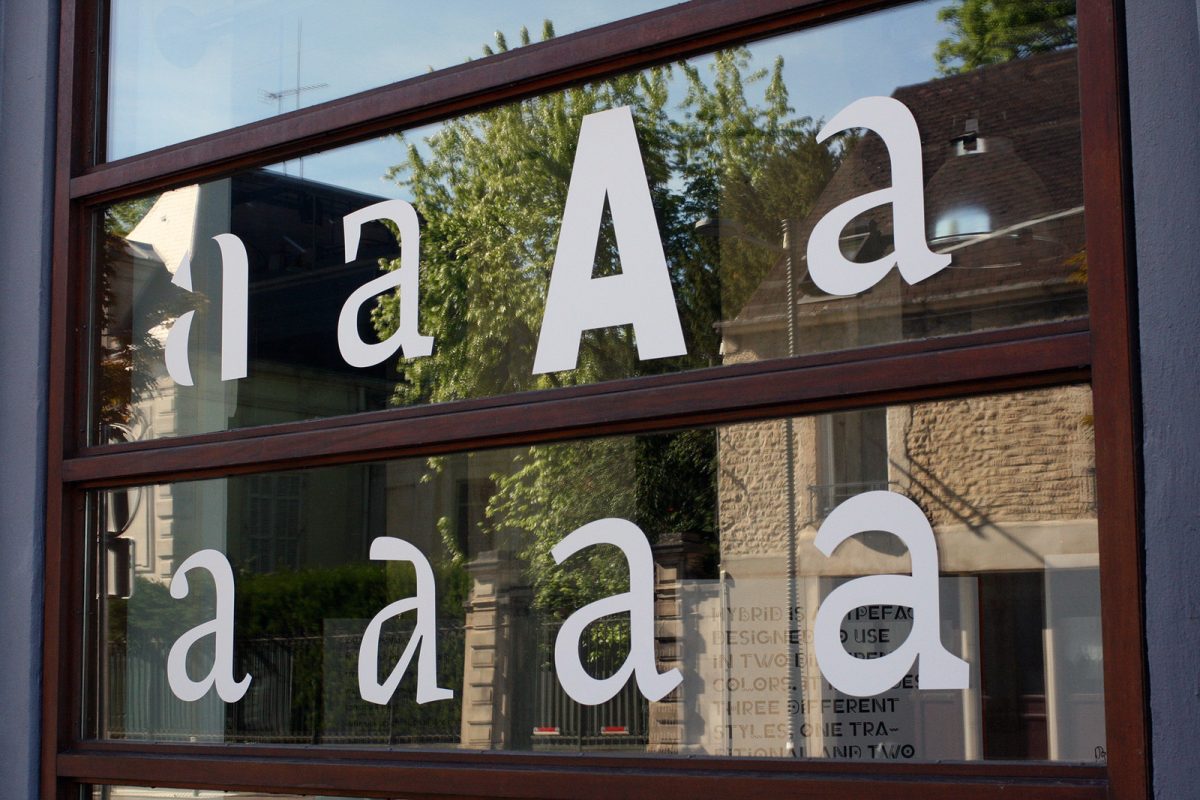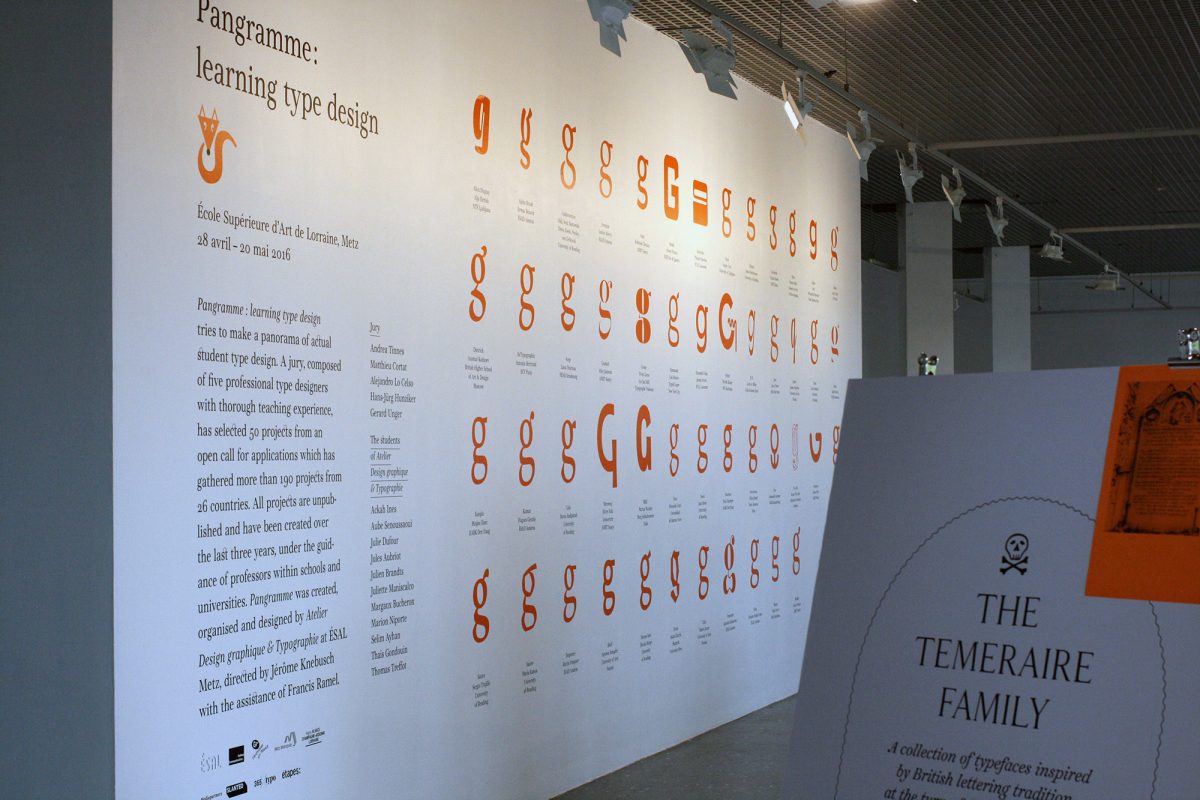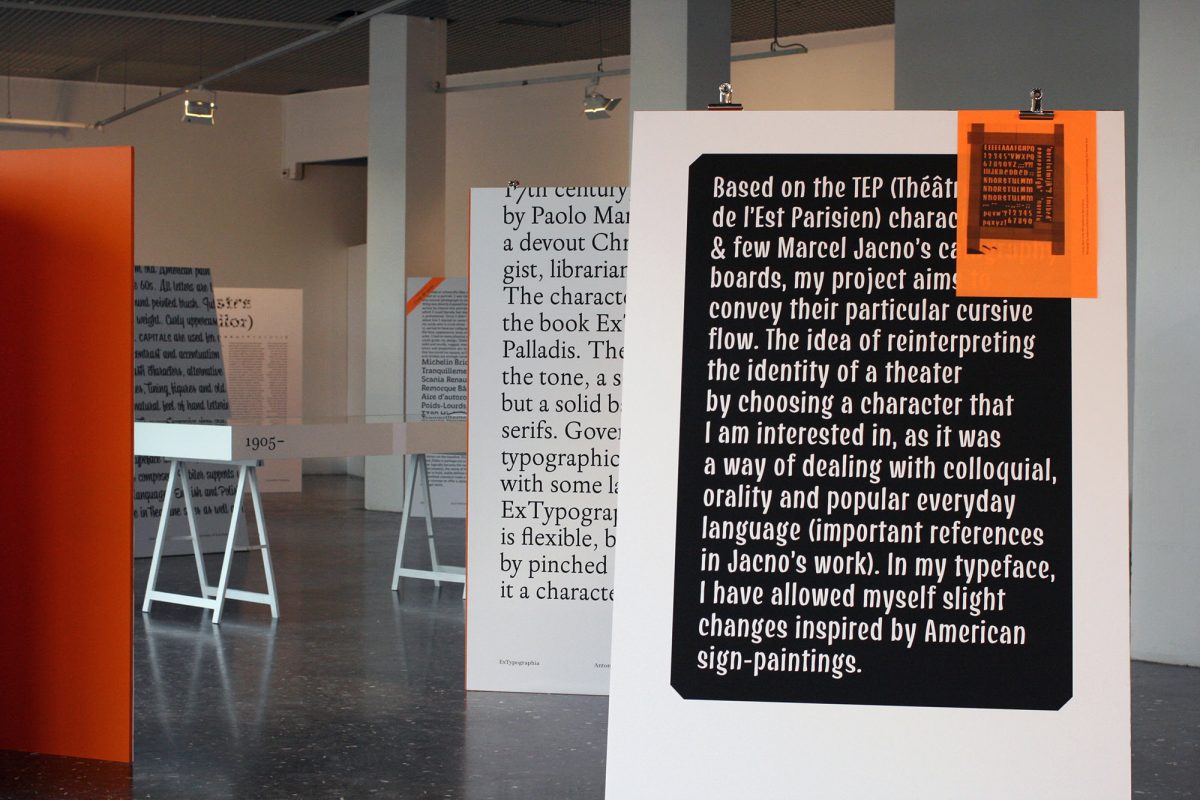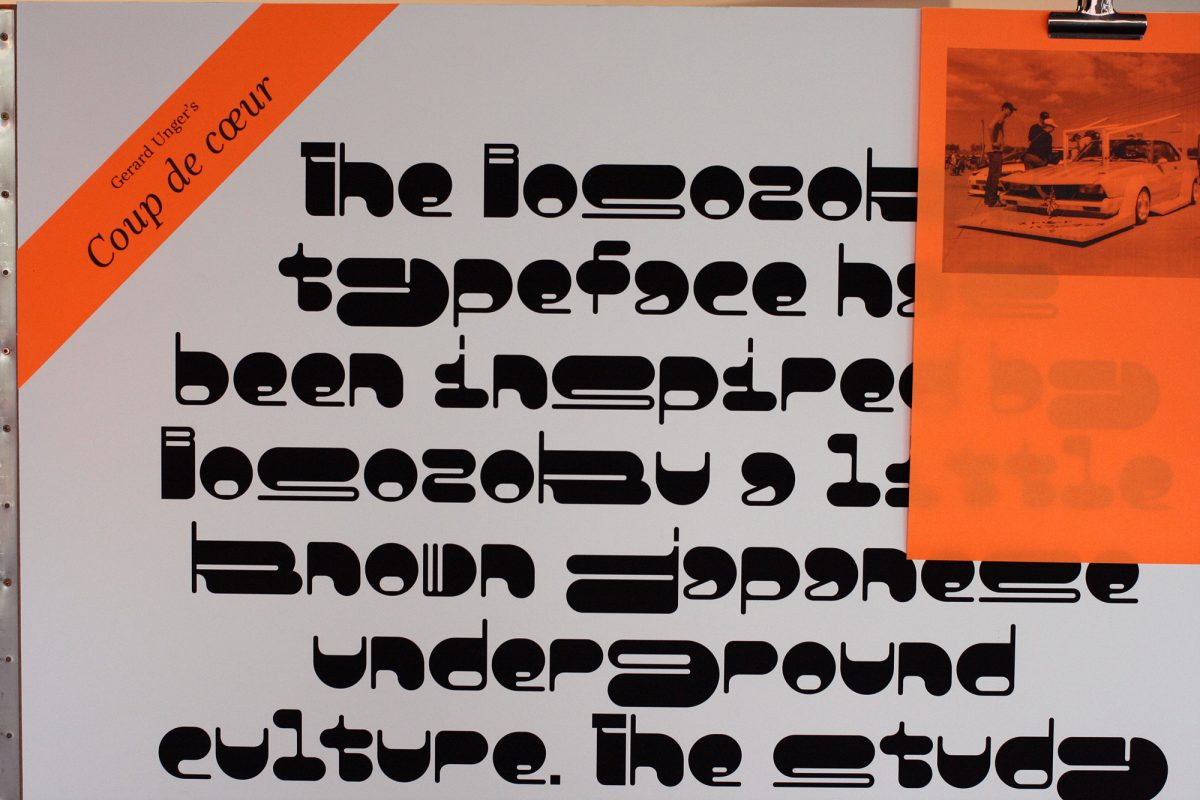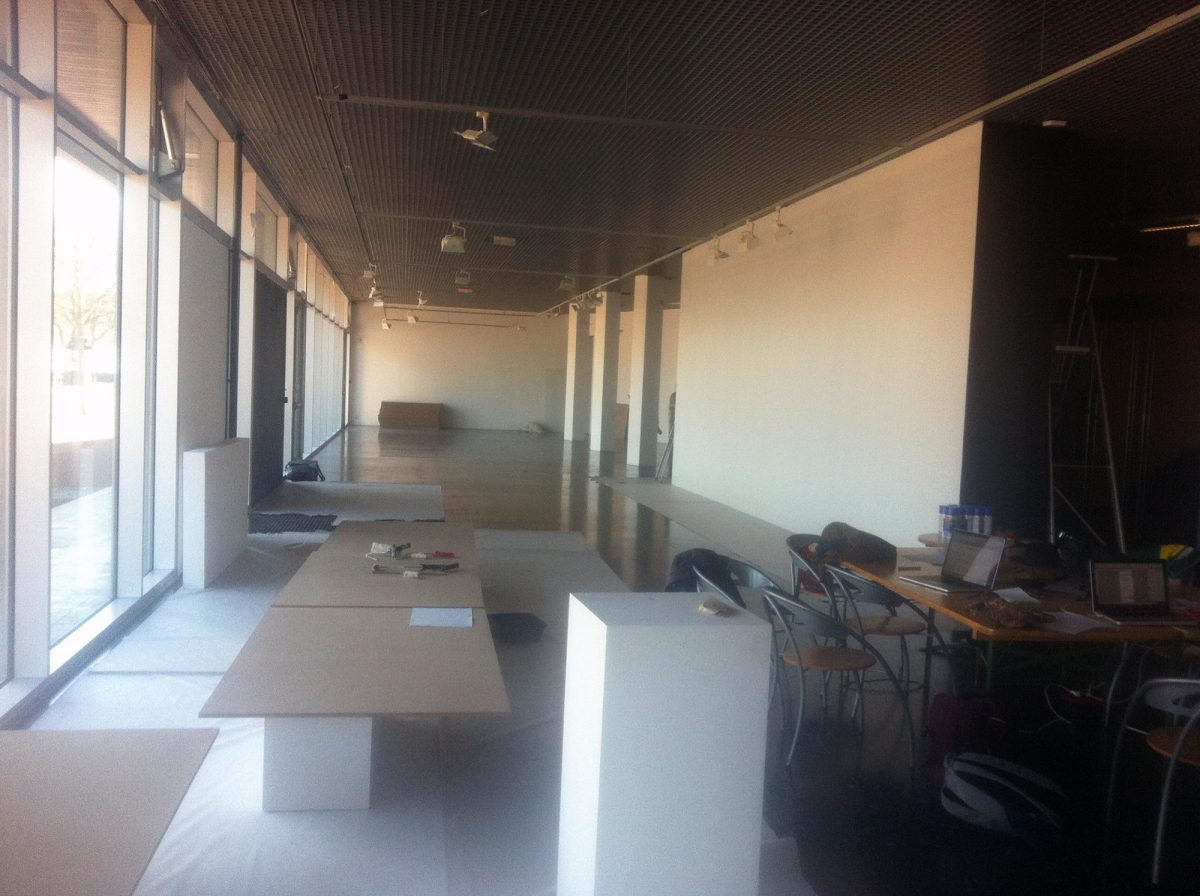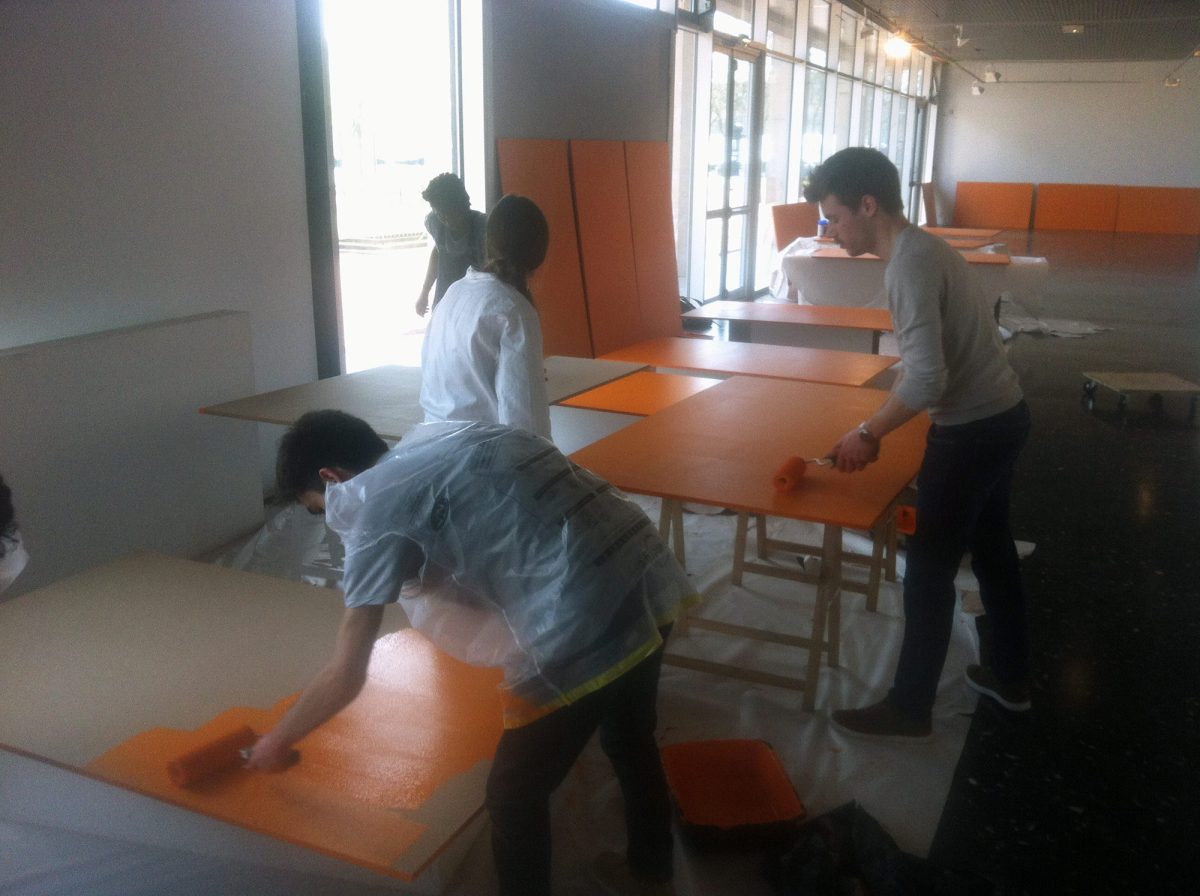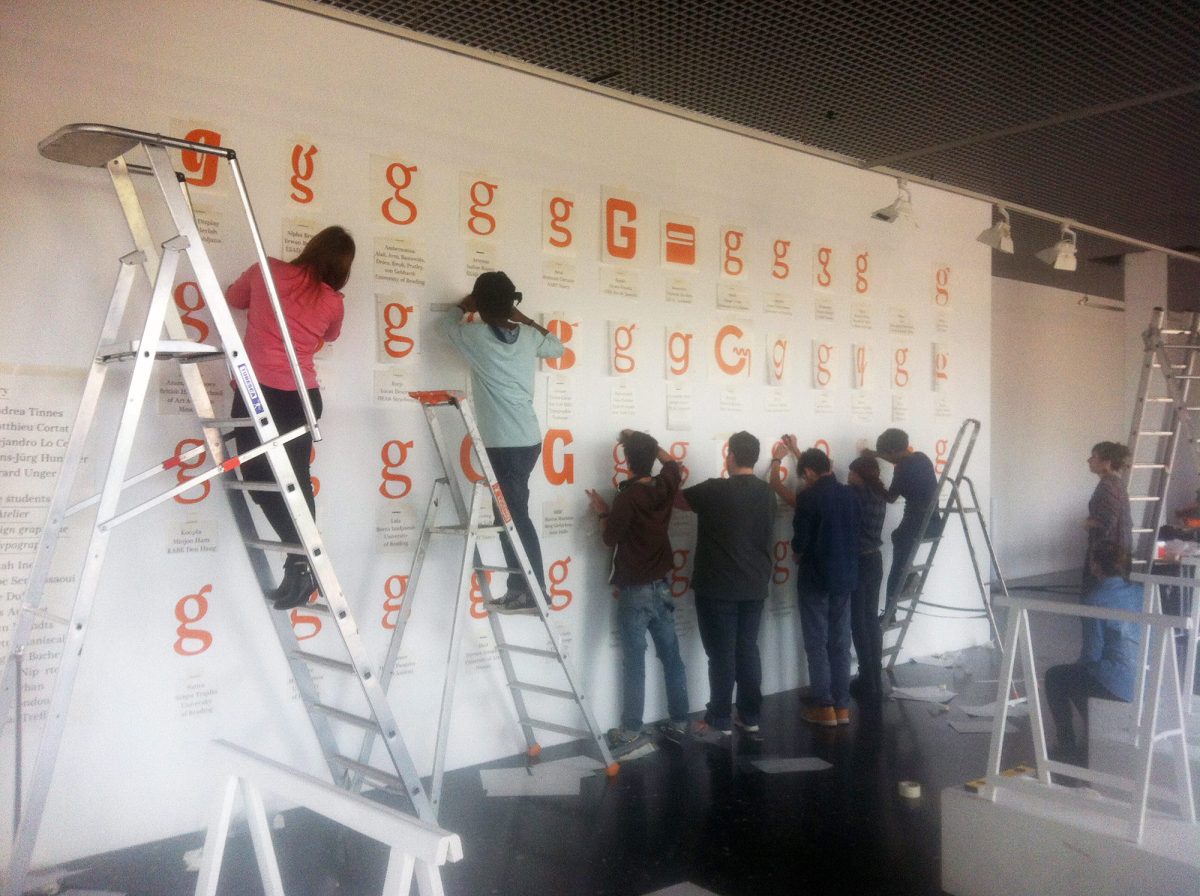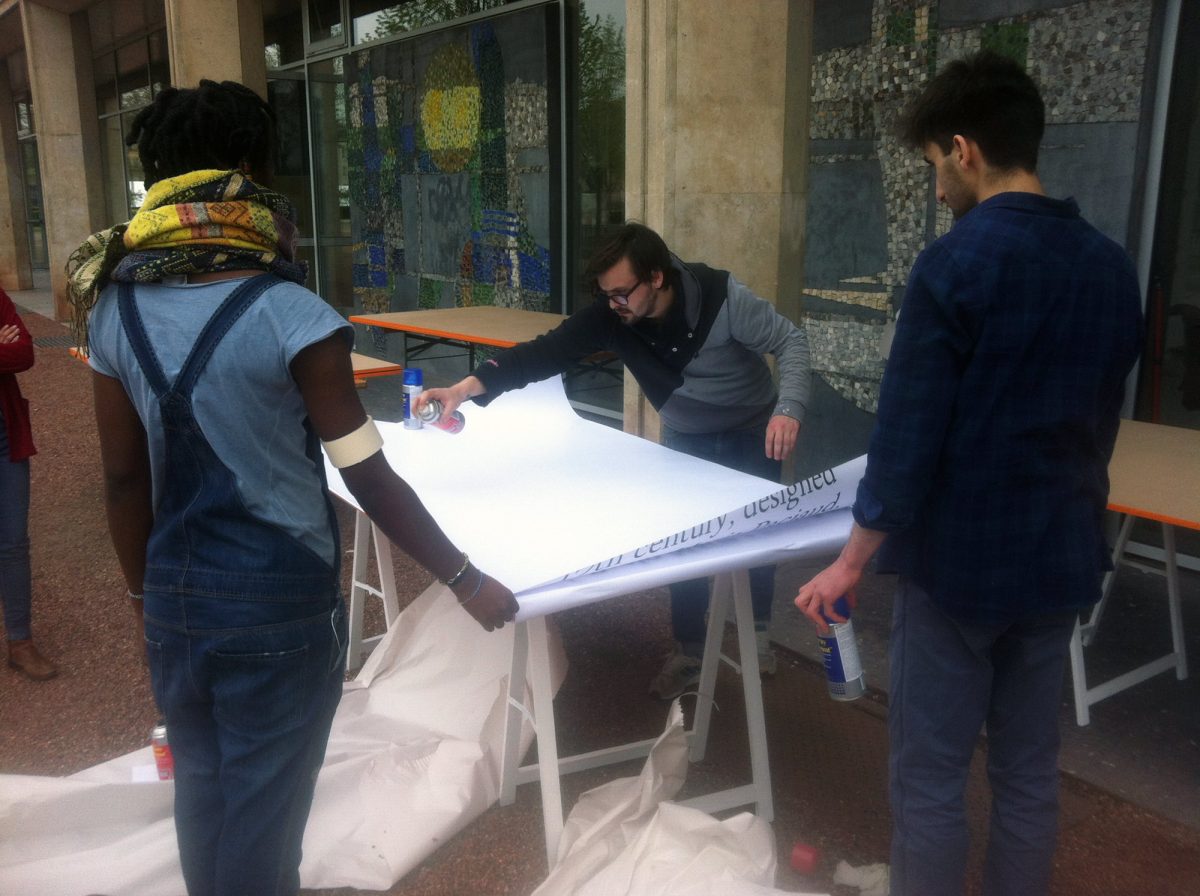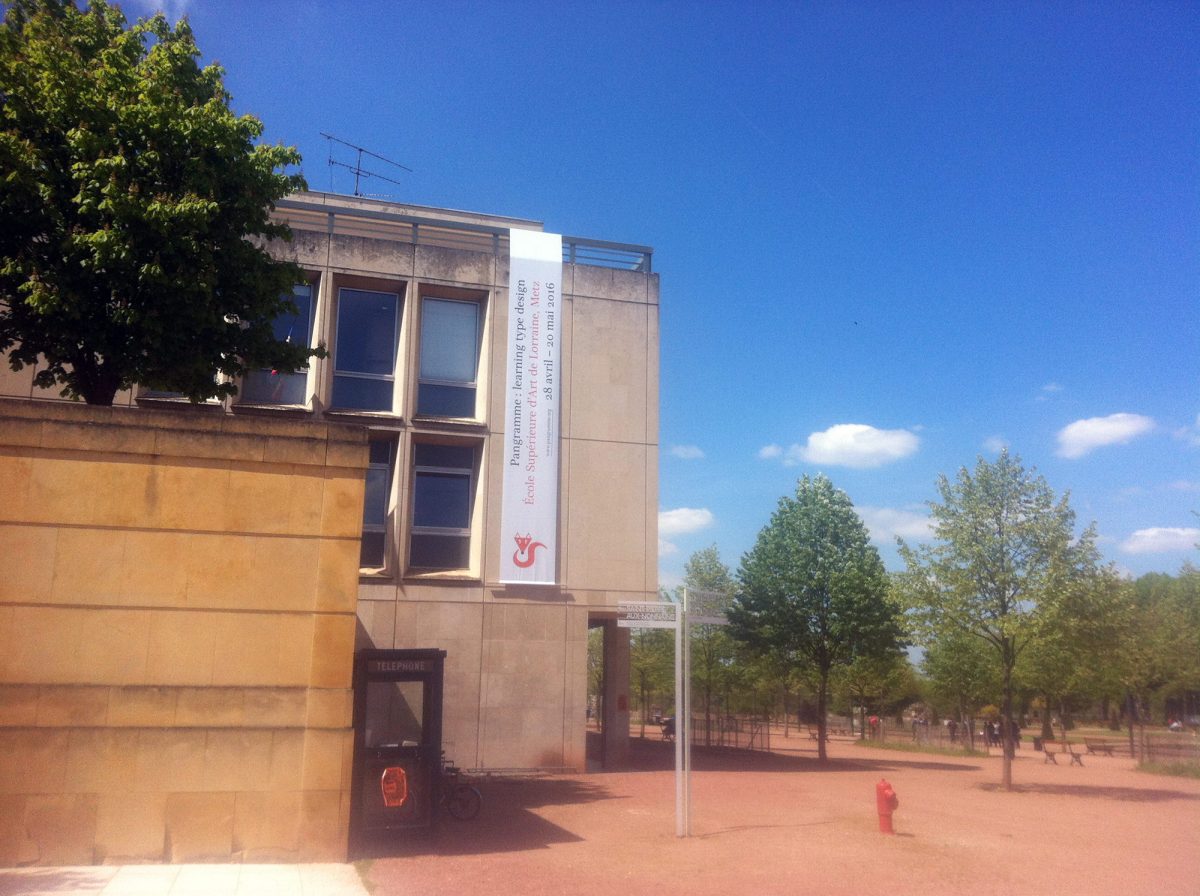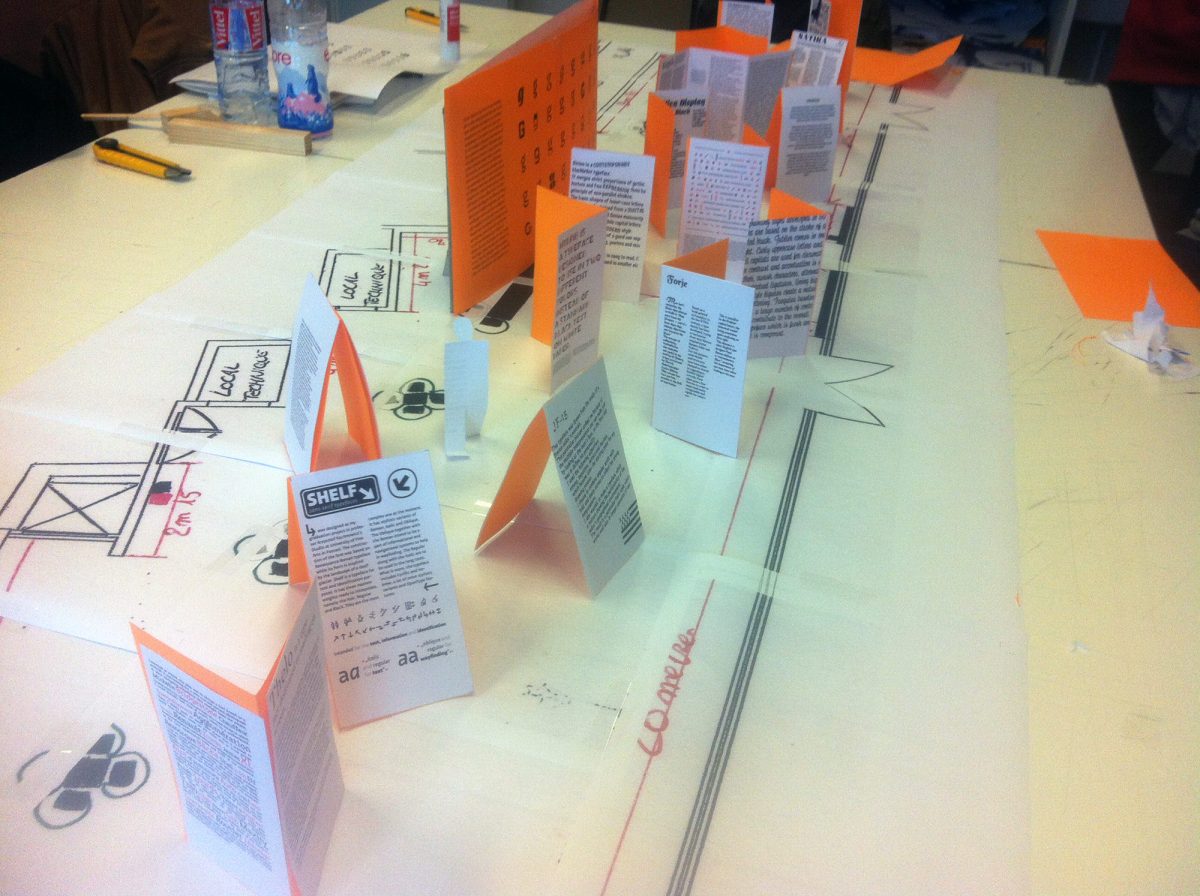
‘Fail again, fail better’
This is the first of a series of articles on type design teaching that we will publish in our blog. Thomas Huot-Marchand, French typographer, designer, and director of ANRT (atelier national de recherche typographique / national institute for typographic research) in Nancy, France, presented, with the following text, the 2017 Chaumont edition of the exhibition Pangramme: learning type design originally assembled in 2016 at the ESAL, art school of Lorraine, Metz.
Metz, Sunday, February 28, 2016
In a few hours, the call for applications for the first edition of Pangramme: learning type design will be completed, an international exhibition of student type designs that will be opened at the art school of Lorraine in Metz two months later. Pangramme’s ambition is to draw a current picture of type design learning: Each school communicates on its own scale and it becomes difficult to get an overview of everything that is produced. Jérôme Knebusch took the initiative of this project and brought together a prestigious jury composed of Andrea Tinnes (Germany), Alejandro Lo Celso (Argentina), Matthieu Cortat (France), Hans-Jürg Hunziker (Switzerland), and Gerard Unger (Netherlands), who will be responsible for reviewing the designs and awarding honorable mentions and favorites. It is late and fifty files have already been sent: An honorable figure, given the relative confidentiality of the event, announced just a few weeks before. In the last hours, the counter panics: dozens of mails flocking, bringing the total to 194 files filed from 25 different countries. Such a success, superior to the most optimistic forecasts, upsets planned organization: the team will have to be strengthened to deal with the coming weeks, all this documentation.
The singularity of the Pangramme exhibition is to present only typefaces made by students, designed during the last three years, and unpublished. Its success reflects the extraordinary vitality of type design in art and design schools around the world: An inconceivable situation even a decade ago.
Curricula offering a specialization in typeface design have indeed multiplied. Introductory workshops within the 1st cycle, masters courses,
research programmes, several formats have developed, combining different levels of expertise. It’s not just about specific training (quite a few of those programmes are), but also short courses or workshops taking place within general training courses, in which typeface design is frequently called. It’s a great thing to sensitize graphic design students to the drawing of letterforms: These are two different but perfectly complementary practices. At the end of introductions of this sort, some students can continue in this path (and develop a project until their diploma, there are many examples here), and everyone will probably get a better understanding of the forms they handle on a daily basis, having apprehended
from within the structure of typographic letterforms.
The exhibit was entirely planned, produced, and assembled by the graphic design & typography class led by Jérôme Knebusch.
What does one learn by drawing one’s first alphabet?
First, a pure drawing, black and white, where attention is focused on the tension between empty and full, form and counterform. ‘cartainly the most brittle of all the arts’ said Tschichold. It is difficult to grasp from the outset the importance of the white, of the space between the letters and inside the letters, which is absolutely decisive for the appearance of the typeface. Little by little the eye manages to judge the curves, find the right rhythm, the good balance.
It is also experiencing the perception of these forms at different scales: From an extreme level of detail offered by vectors’ description to a display size or sometimes a very small print.
Finally, in the drawing of letterforms, hundreds of small local decisions, which must form a coherent whole. A ‘beautiful set of letters’ rather than a ‘set of beautiful letters’, according to Matthew Carter’s formula. There are enough similarities for the letteforms to emit a common identity, but enough differences to avoid confusion: A paradoxical dynamic that each character solves in its own way.
It is not so simple
Most of the time this learning is done in a progressive way, and the ‘first design’ is the martyr of these successive discoveries: It often knows a thousand versions, returns back, abandonments, or revelations. We cannot anticipate these episodes so much we do not know, at the beginning of the trip, what will be done. Peter Bil'ak, to illustrate this phenomenon, borrows from the composer Brian Eno the metaphor of the gardener and the architect. The gardener’s work develops organically: ‘Feed simple things to greater complexity, plant the seeds carefully and help them reach their full potential’.
Conversely, ‘an architect traditionally begins with a concept, first developing the whole idea, working from top to bottom’. 1 He applies a program in which most developments are anticipated — which requires a greater experience or, at least, having already been there. These two approaches are equal; they only correspond to different working dynamics. Peter Bil'ak, in the text quoted above, says, for example, that he has conceived his character Fedra as a gardener, as you go, and Greta as an architect, on a pre-established plan. 2
Nina, by Fernanda Cozzi = Hans-Jürg Hunziker’s favourite
Bosozoku, by Thibault Baralon = Gerard Unger’s favourite
Nordvest, by Nina Stössinger = Andrea Tinnes’ favourite
Didier, by Axel Pelletanche Thévenart = Matthieu Cortat’s favourite
Artemio, by Isaline Rivery = Alejandro Lo Celso’s favourite
In either of the courses the pitfalls are numerous
One of them is the specificity of the creation of typographic characters, which, unlike most other fields of design, can be exercised without any sponsor or constraint of any kind. The cost of producing a digital font is now very low, and its diffusion hardly more expensive: it is mostly a matter of time, basically. Taken in this long process, and because of the fascination to see gradually appear their own personality, it happens that we lose sight of the starting point, and especially the destination of this design.
But without reason or a real context of use, a typeface (one more) does not weigh much.
Another trick is to surrender to fascination, an obsessive strand, to shape a complete tool. Capitals, minuscules, numbers, punctuation, then all the accents, ligatures, small capitals… We arrive quickly to hundreds of glyphs. And why not other scripts? The character sets of digital fonts are always provided with all sorts of features and the potential encoding of tens of thousands of characters (the Unicode has more than 120 000 to date). Not to mention families, whose size also increases: It is not uncommon to see families today exceed the hundred styles, combining all widths, weights, slopes, grades, etc. Here again, we must be careful to properly size the project, not to get lost in an accommodating proliferation, made of interpolation and utopian ubiquity. On this point, the technological advances and the progress of the font editor applications do nothing to calm the expansionist ardor of type designers.
Finally, the elephant in the room: How to be original when there are so many fonts out there? An argument that is frequently heard, and not always unfounded. On this subject, Peter Bil'ak himself states, in a brief, provocative text entitled We don’t need new fonts, Many people drawing type today have solid drawing skills, but no desire to advance the field (let alone rebel against it) by creating original solutions. Can we call them type designers? I think, at least not any more than we can call every fast, accurate typist a writer. Content is at least as important as form, the ideas we express as important as how we express them. "3
Because, of course, we’ll always need new fonts. And there are many fields to be explored, to be conquered: Unknown historical models to be rescued, for example, or writing systems that are little or not transcribed typographically. In order to envision those fields you have to start an adventure, consult files, go where others have not yet arrived. Closer to home, even in the current frenzy around emojis, there are potential typographical questions. To do that, you have to take risks, but what are the risks? Failure is a component of learning, an essential driving force, as in Samuel Beckett’s famous phrase used for the title of this text. 4 The real failure actually is not taking any risks.
The type works presented in the exhibition and in the Pangramme catalogue correspond to a little more than a quarter of the files originally received. The typefaces called ‘experimental’ were the most numerous, but also the least experienced: many were discarded in the first selection. At the other end of the spectrum, the so-called bred-&-butter types have the most entries, followed by revivals (adaptations of historical types). Projects that show a greater maturity (often produced in postgraduate courses or specialized masters), but sometimes a little less originality: Some revivals, for example, are literal reiterations that show a lack of own point of view. In types for immersive reading, we note that the vast majority are serif styles, and that among them, the didones are a minority. No doubt this is related to learning: It is easier to understand the complexity of type design by employing serifs. Calligraphy is usually a gateway to identify fundamental principles. This may explain why the didones, which do not respond to a calligraphic rhythm, are underrepresented.
Between the experimental types and the bred-&-butter types, all the nuances are possible: The great variety of styles presented here defies any attempt at synthesis. Most of them are probably works of ‘gardeners’, learning projects: They are not necessarily the first fonts of their authors, but often their first major project. Some have been published since then, but many will undoubtedly remain unpublished: All, in any case, reflect remarkable paths and promise a bright future to typeface design.
Download freely the Pangramme catalogue and the pamphlets (available in French and German for the moment) here. Or acquire the printed catalogue in the PampaType store.
The Pangramme exhibition was launched at the gallery of the ESAL, Metz, with a large French and international audience.
Part of the jury and team of students and teachers who made the Pangramme event possible.
Thomas Huot-Marchand is a French type designer, graphic designer, and teacher. He is the current director of the ANRT, atelier national de recherche typographique (national institut for typographic research), in Nancy (FR). Among his typefaces, Minuscule occupies a singular place as a typeface designed for tiny bodies.
1. Peter Bil'ak, Designing Type Systems, published originally in ilovetypography.com, 2012. ↩
2. Another example of organic development is the project Messine made by the students of ESAL, Metz, throughout type design worshops with Alejandro Lo Celso and Jérôme Knebusch. ↩
3. Peter Bil'ak, We don’t need new fonts, 2011. Written for the editorial of the magazine 8 Faces, N ° 3, 2011. ↩
4. ‘Ever failed. No matter. Try again. Fail better.’ Samuel Beckett, Worstward Ho, London, Calder, 1983. ↩